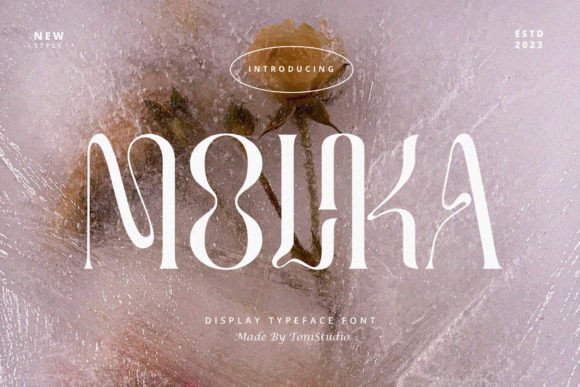
Step into the world of typography with Molika Font, the captivating serif typeface that takes your designs to new heights. Crafted with a meticulous blend of vintage charm and modern elegance, Molika is a visual masterpiece that commands attention wherever it appears.
With its distinctive character set, Molika brings a touch of uniqueness to every project it graces. Its bold strokes and captivating curves dance across the screen, creating an unforgettable impact that leaves a lasting impression on your audience.
Unleash your creativity and let Molika elevate your designs to new heights. Its versatility knows no bounds, making it the perfect choice for a wide array of projects. From eye-catching logos that demand attention to Instagram quotes that resonate with your followers, Molika transforms ordinary words into captivating statements.
Dive into the world of portfolio websites and editorial layouts, where Molika's presence adds a touch of sophistication and timeless beauty. Personal branding takes on a new dimension with Molika, as its distinctive style reflects your individuality and sets you apart from the crowd.
Envision the elegance of wedding stationery adorned with Molika's graceful curves, creating an enchanting ambiance for your special day. Elevate your product packaging designs with Molika, as its intricate details add an air of exclusivity and luxury to your products.
Embrace Molika's versatility and watch your designs come alive. It's a font that speaks to the heart and captivates the eye, leaving an indelible mark on all who encounter it.